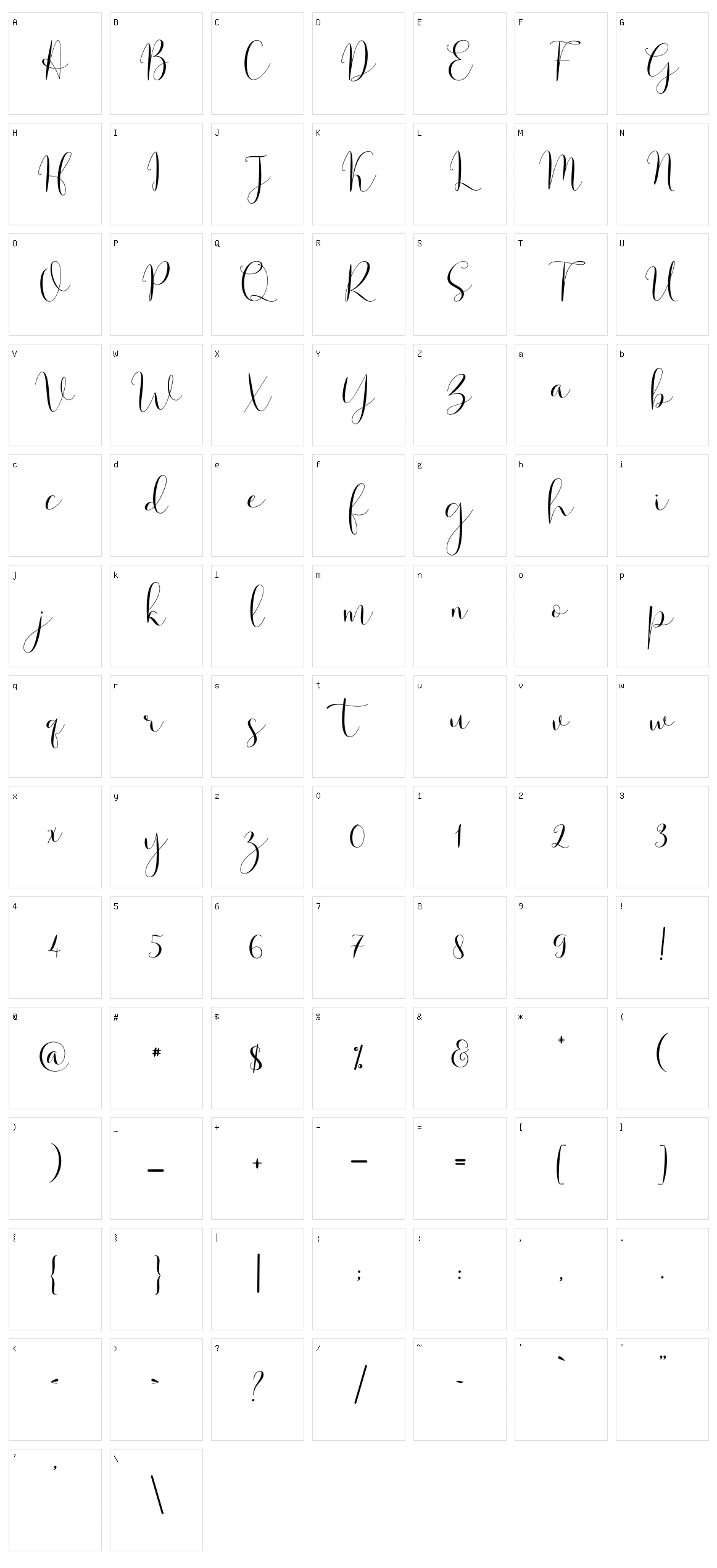
The free font Solidar is carefully designed by Solidtype, showcasing a thoughtful balance of creativity and usability and falls under the Script font style. When you download the ZIP file, it contains only 118.26 KB of font files, making it lightweight and quick to download. Please review the license details below to understand permitted usage and distribution rights. If license information is not available, we recommend using this font for personal projects only or contacting the author directly for commercial usage permissions.